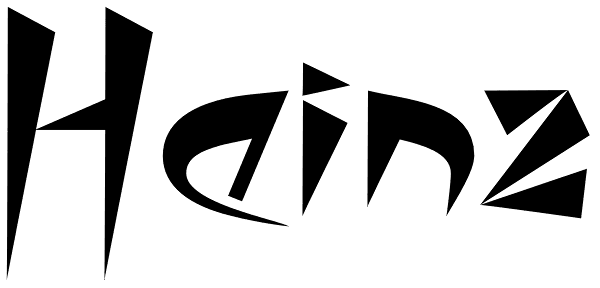
Heinz
Heinz is inspired by the poster design of Heinz Schulz-Neudamm for Fritz Lang’s famous silent movie Metropolis. Heinz Schulz-Neudamm did quite a lot of work for the German branches of big American movie companies like 20th Century Fox or MGM. His...